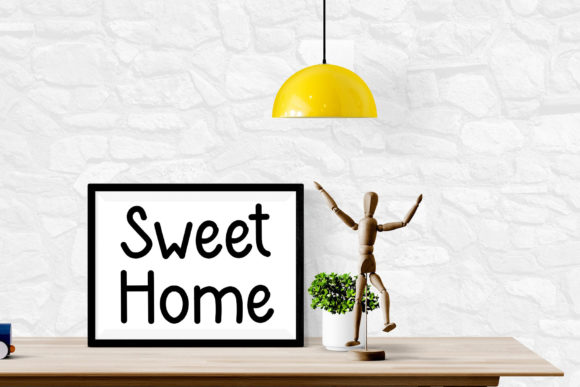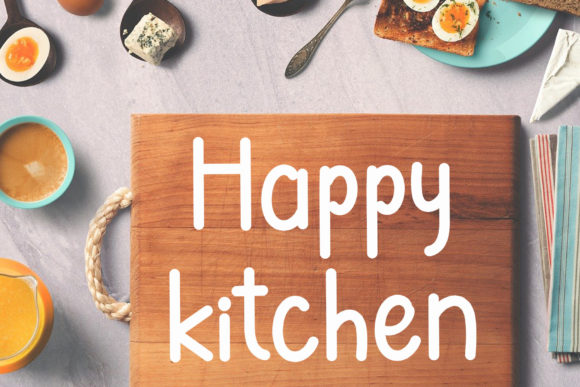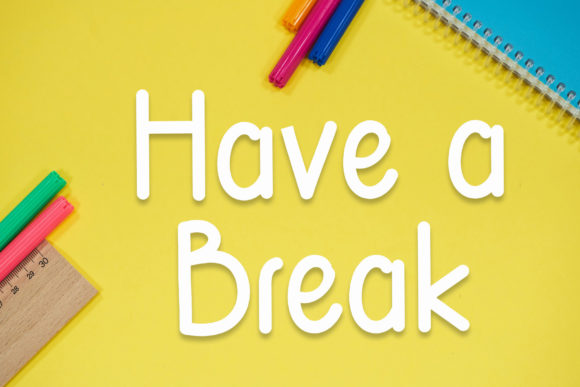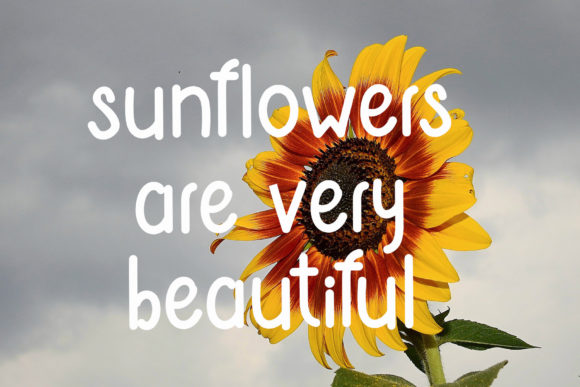
About Milkshake Chocolate Font
Milkshake Chocolate is a classci script font. No matter the topic, this font will be an incredibly asset to your fonts’ library, as it has the potential to elevate any creation.